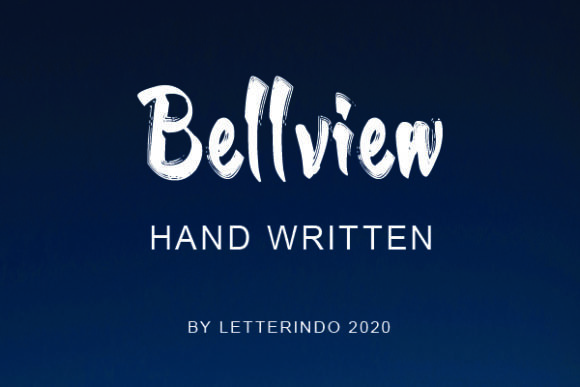
The Perfect Blend of Creativity and Personality
You know that moment when you’re brainstorming ideas for a new project and everything just clicks? The colors, the layout, the font – it all comes together to create something truly special. And that’s exactly what we’re talking about today: a font that can take your creative vision to the next level. Say hello to Bellview, a beautiful handwritten font that’s perfect for adding a touch of personality to your designs.
Whether you’re a seasoned designer or just starting out, Bellview Font is an absolute must-have in your toolkit. Its playful, whimsical style is perfect for adding a touch of elegance to your Instagram posts, or for creating stunning calligraphy scripts for DIY projects. With Bellview, the possibilities are endless, and we can’t wait to see what you create!
Bellview Font Key Features
- Font Family: Bellview Font comes in multiple font families, including regular, bold, italic, and bold italic.
- Unique Characteristics: Bellview Font features a unique blend of modern and vintage elements, with subtle texture and flair that adds a touch of sophistication to any design.
Bellview Font Review
Overall, I think the Bellview Font is a decent addition to any designer’s toolkit. There are some great features that make it stand out from the crowd. ✨ Here are a few things that work well:
- It has a unique, modern feel that’s perfect for contemporary designs.
- The font is highly legible, even at small sizes.
- The weight and spacing options are flexible and customizable.
- It’s a great choice for headings and titles, where a bold and eye-catching font is needed.
However, there are a few limitations to consider. ⚠️ Here are a few things that could be improved:
- The font may be a bit too bold for some designs, and could potentially overwhelm the content.
- It may not be the best choice for body text, where a more subtle font is needed.
- The font doesn’t have as many language support options as some other fonts.
Overall, I think the Bellview Font is a solid choice for designers who need a modern, bold font for headings and titles. While it may not be the best choice for every design project, it’s definitely worth considering.
For best results, use the Bellview Font in headings and titles to add a touch of elegance to your design.
For best results, use the Bellview Font in combination with bold lines and geometric shapes to create a modern and sleek design.
For best results, use the Bellview Font in headings and titles to add a touch of sophistication to your presentation or document.
The Bellview Font is ideal for:
– Modern and minimalist designs
– Luxury and high-end branding
– Elegant and sophisticated presentations
Remember to use the Bellview Font in combination with high-quality images and graphics to create a cohesive and professional design.
Alternatives to Bellview Font
Open Sans is a modern sans-serif font that is highly legible and versatile. It’s perfect for body text and works well in digital interfaces. Use it for: digital products, mobile apps, and websites.
Compared to Bellview Font, Open Sans has a more neutral and clean design. While Bellview Font has a more distinctive feel, Open Sans is more neutral and blends well with various design elements.
Montserat is a geometric sans-serif font that’s inspired by urban typography. It’s great for headings and works well in modern, minimalist designs. Use it for: branding, logos, and advertising materials.
Compared to Bellview Font, Montserrat has a more geometric feel and a stronger emphasis on typography. While Bellview Font has a more rounded feel, Montserrat is more angular and modern.
Q: Does the Bellview Font support languages other than English?
Yes, the Bellview Font supports a wide range of languages, including Latin, Cyrillic, Greek, and many others. The font includes a comprehensive character set that covers a variety of languages and scripts, making it a great choice for designers working on international projects.